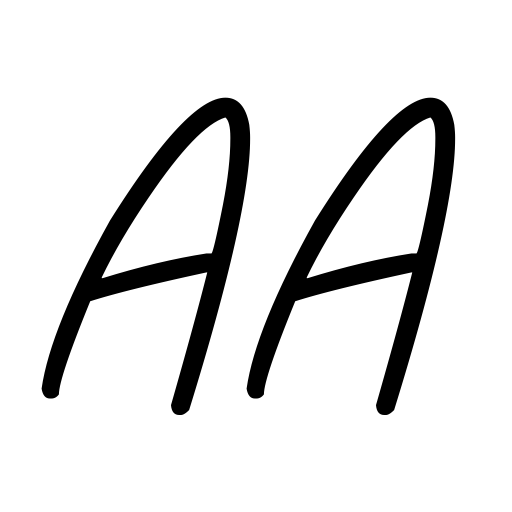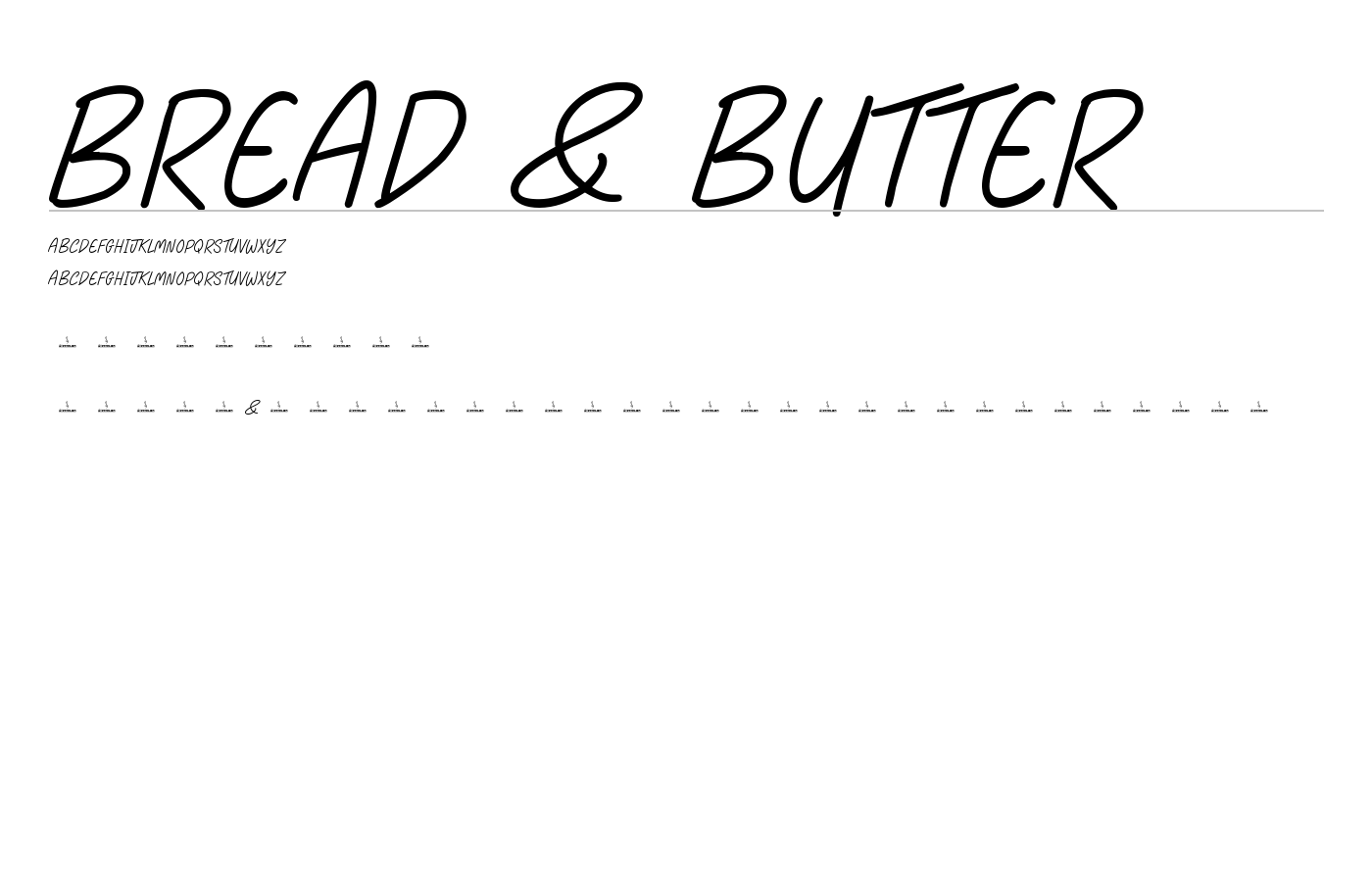
Bread & Butter is a lively, casual script font with a handwritten feel that combines smooth, slightly rounded strokes and a moderate slant, creating an approachable and friendly vibe. Its medium weight and clean lines make it versatile for fun, informal branding, social media graphics, and lifestyle projects seeking a warm, personal touch. This font works best in headlines, logos, and packaging where a playful yet readable style is desired.
Bread & Butter Font
About Bread & Butter Font
| Font family | Bread & Butter Font |
| Designer | Jonathan S. Harris |